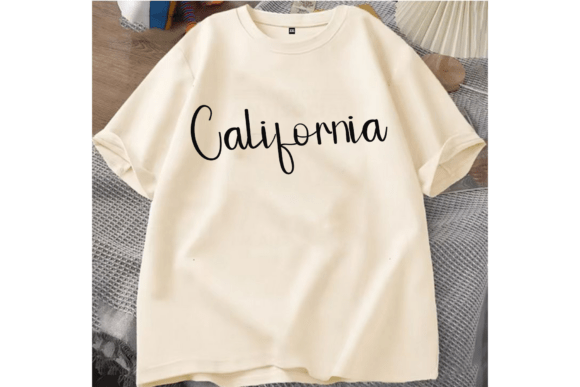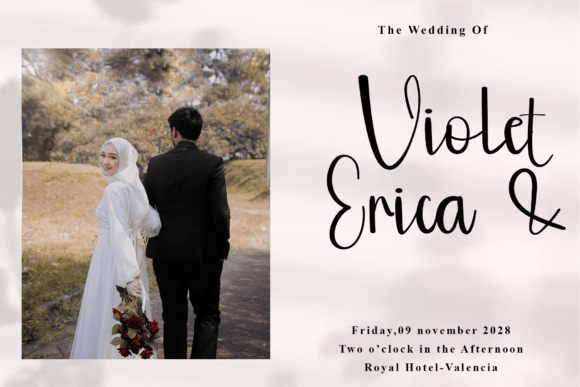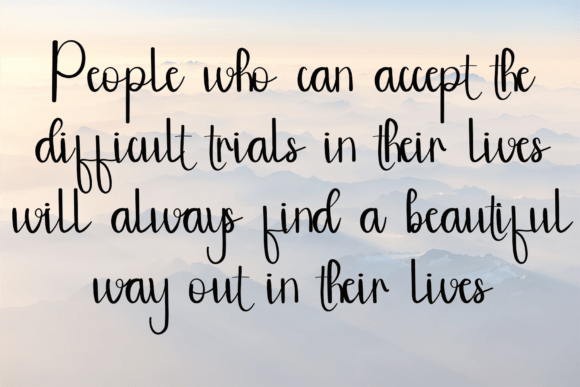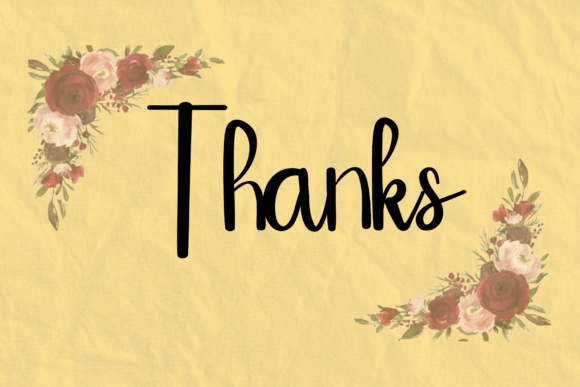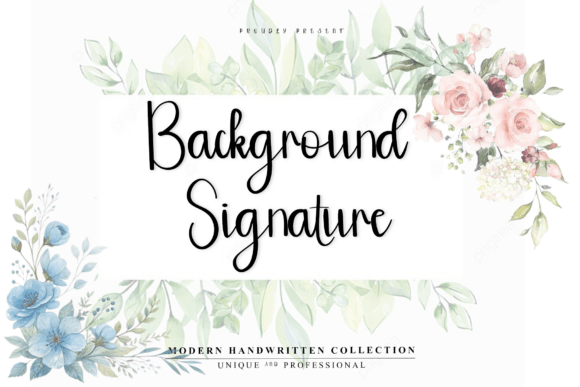
Elevate Your Designs with the Elegant Background Signature Font
In the world of typography, a well-crafted font can make all the difference in elevating your designs from ordinary to extraordinary. For designers and crafters seeking a touch of elegance and sophistication, the Background Signature font is an exceptional choice. This exquisite font is designed with meticulous attention to detail, ensuring a seamless reading experience that captivates your audience.
Designed for Elegance and Readability
The Background Signature font boasts a carefully balanced kerning and fluid letter spacing, which work in harmony to create a smooth and enjoyable reading experience. The strokes are meticulously crafted, featuring smooth curves and refined terminals that exude luxury and refinement. This makes it an ideal choice for a variety of applications, including signature logos, wedding invitations, branding, and luxury packaging.
A Perfect Blend of Authenticity and Polish
One of the standout features of the Background Signature font is its slightly irregular baseline, which adds to its authentic handwritten feel. This subtle imperfection gives the font a personal and human touch, making it perfect for designs that require a sense of warmth and personality. At the same time, the consistent rhythm between characters maintains a polished and professional look, ensuring that your designs convey a sense of sophistication and elegance.
The Background Signature font is incredibly versatile, making it suitable for a wide range of design applications. Whether you’re creating quotes, headers, or social media graphics, this font delivers charm and clarity in equal measure. Its luxurious feel and elegant appearance make it perfect for:
• Signature logos: Add a touch of sophistication to your brand’s identity with a custom signature logo featuring the Background Signature font.
• Wedding invitations: Create beautiful and elegant wedding invitations that set the tone for a luxurious and memorable event.
• Branding: Elevate your brand’s visual identity with a font that exudes luxury and refinement.
• Luxury packaging: Add a touch of elegance to your luxury packaging with a font that reflects your brand’s high-end values.
• Social media graphics: Create stunning social media graphics that showcase your brand’s personality and style.
Why Choose the Background Signature Font?
With so many fonts available, why choose the Background Signature font? Here are just a few reasons why designers and crafters love this elegant font:
• Elegant and sophisticated: The Background Signature font is designed to convey luxury and refinement, making it perfect for high-end designs.
• Authentic handwritten feel: The font’s slightly irregular baseline gives it a personal and human touch, making it perfect for designs that require a sense of warmth and personality.
• Versatile: The Background Signature font is suitable for a wide range of design applications, from signature logos to social media graphics.
• Easy to read: The font’s balanced kerning and fluid letter spacing ensure a seamless reading experience, making it perfect for designs that require a clear and concise message.
Make Your Mark with the Background Signature Font
In conclusion, the Background Signature font is an exceptional choice for designers and crafters seeking to elevate their designs with a touch of elegance and sophistication. With its carefully crafted strokes, smooth curves, and refined terminals, this font is sure to make a lasting impression. Whether you’re creating signature logos, wedding invitations, branding, or luxury packaging, the Background Signature font is the perfect choice. Let your words speak with elegance — make your mark with the Background Signature font.